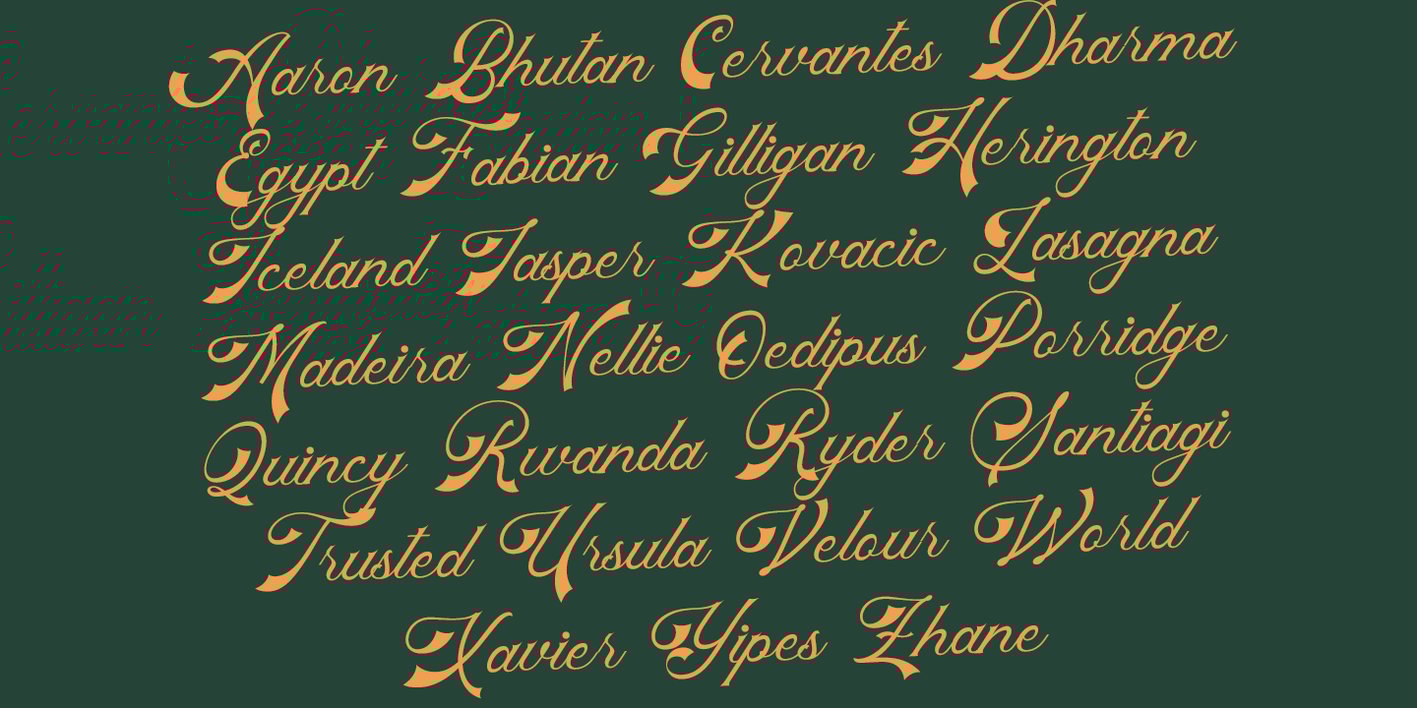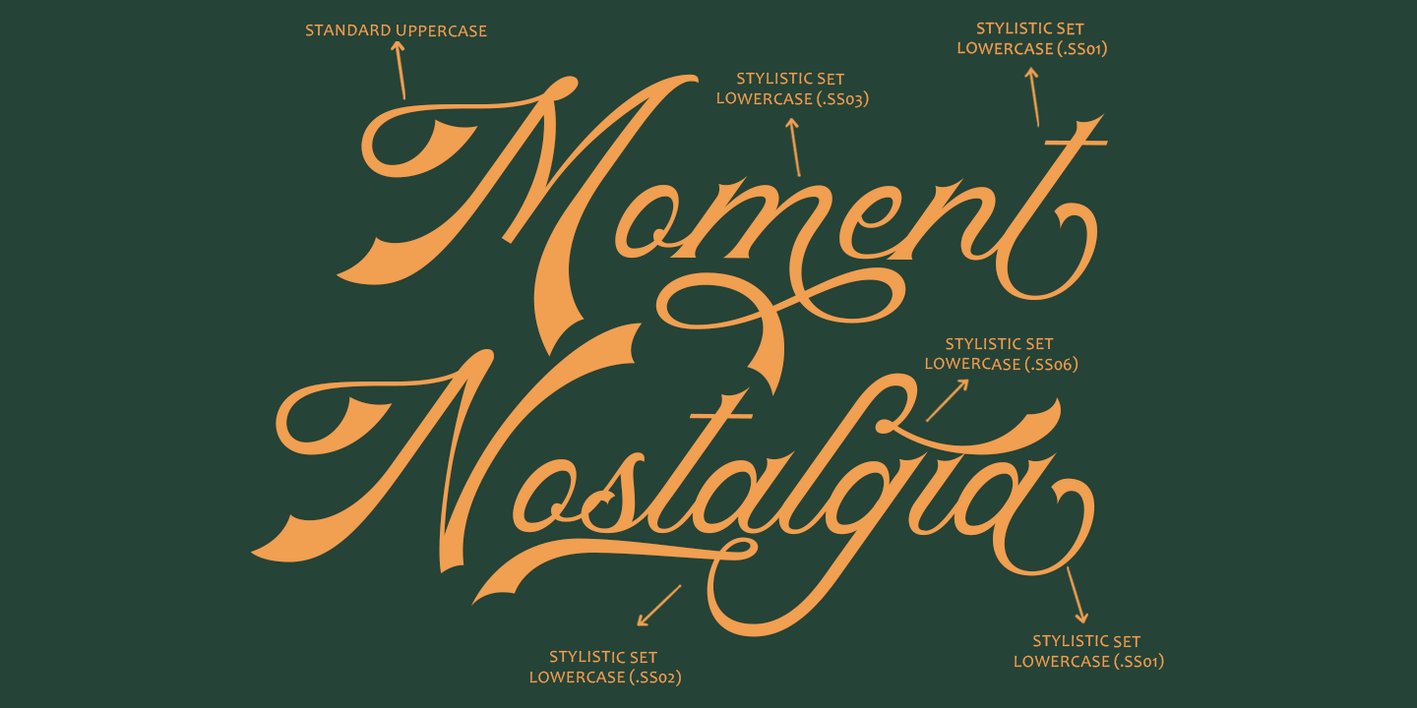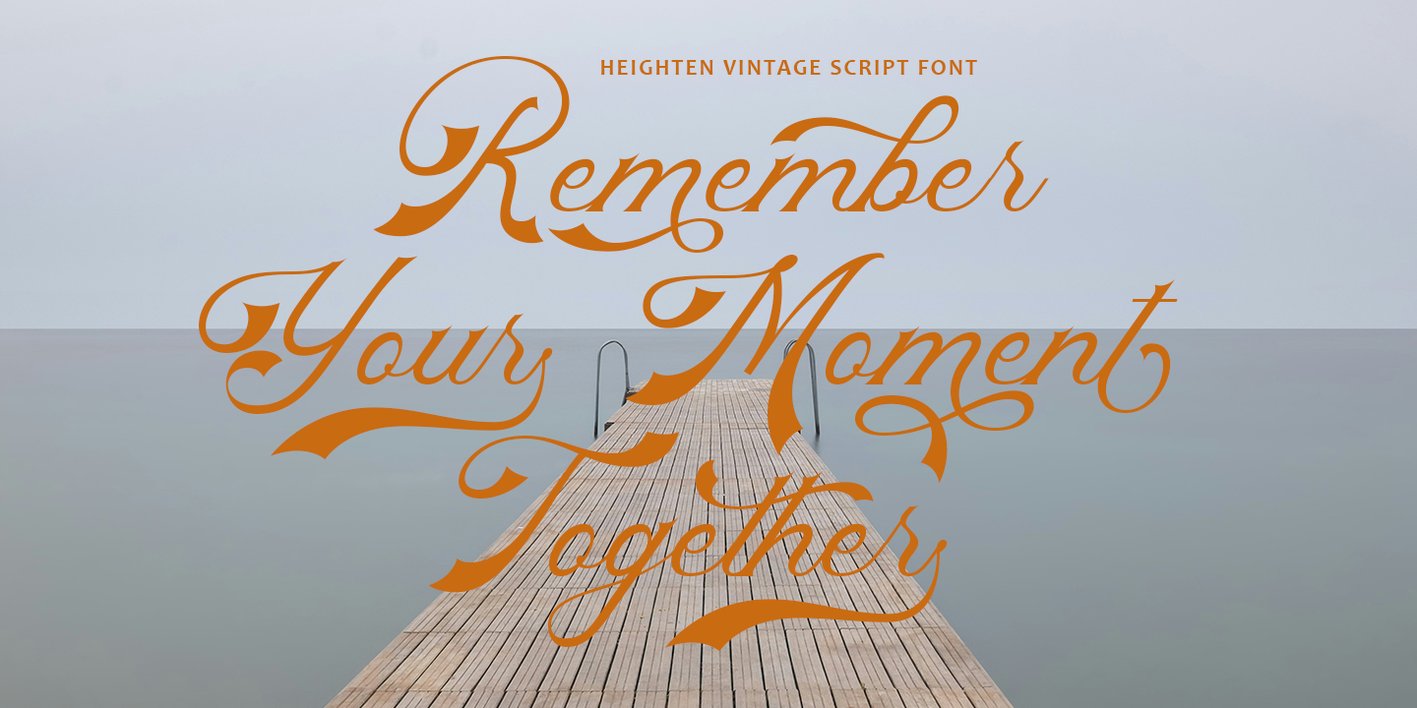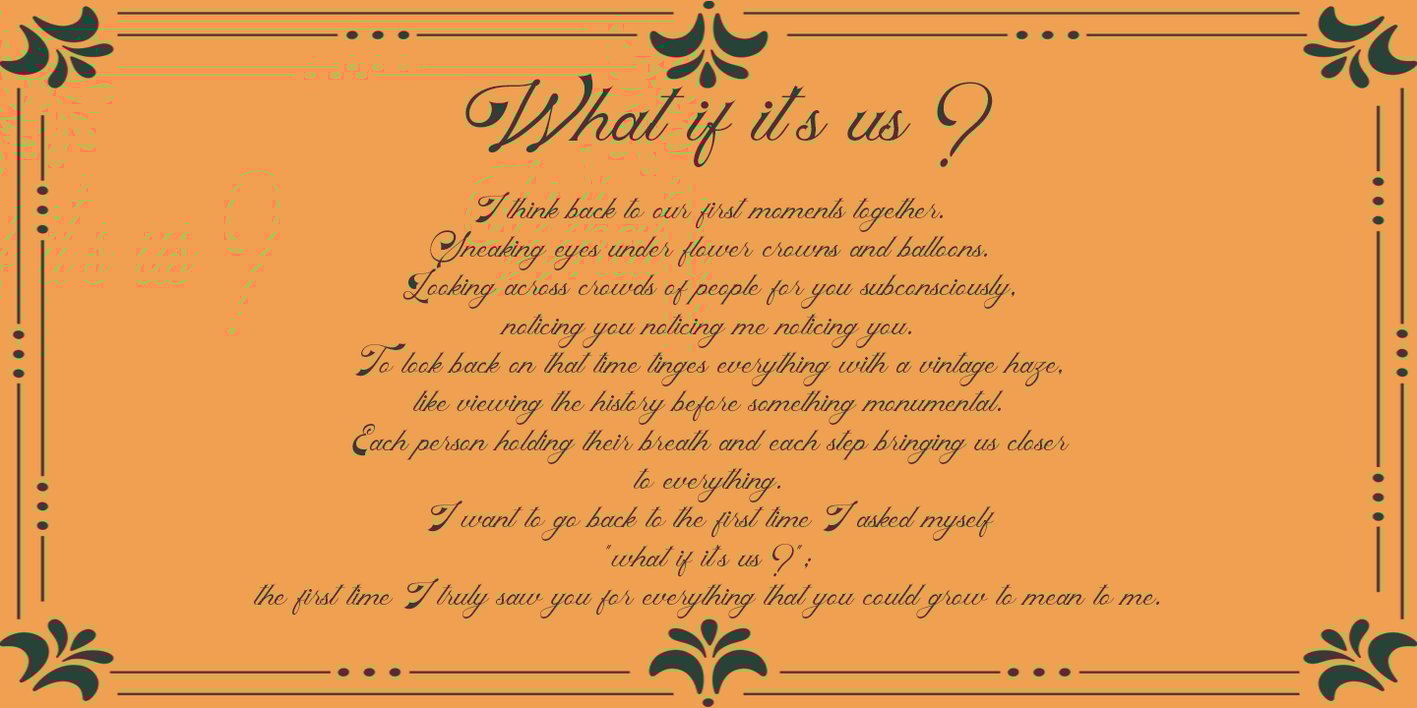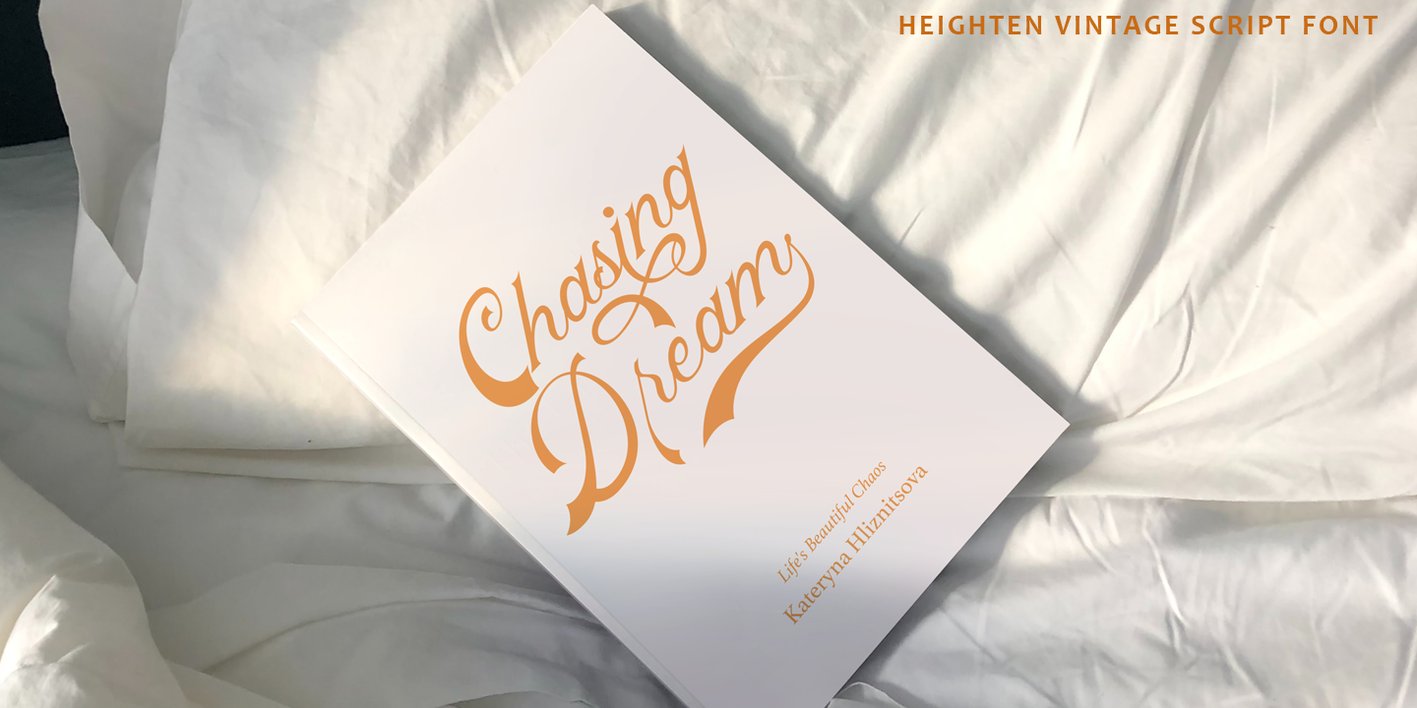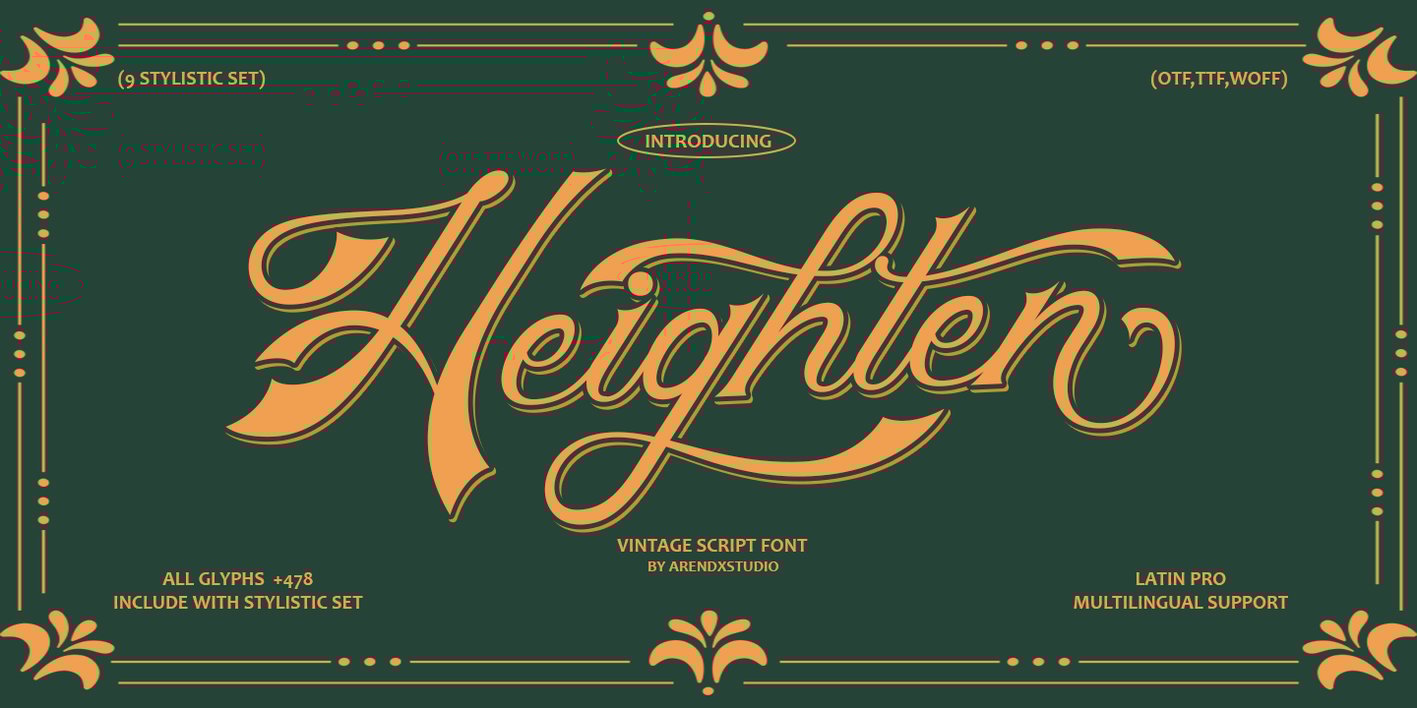
Heighten Font
Heighten is a sophisticated and elegant vintage script font that captures the timeless beauty of classic typography. Designed with intricate details and smooth, flowing curves, this font brings a touch of nostalgia and refinement to any project.